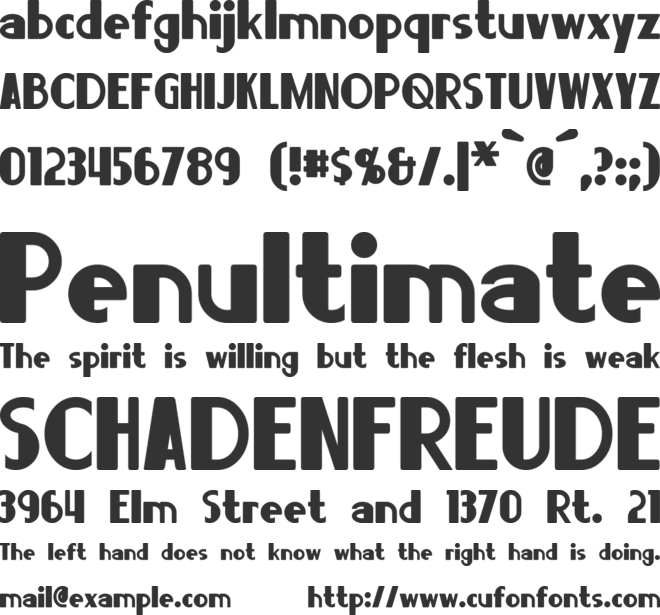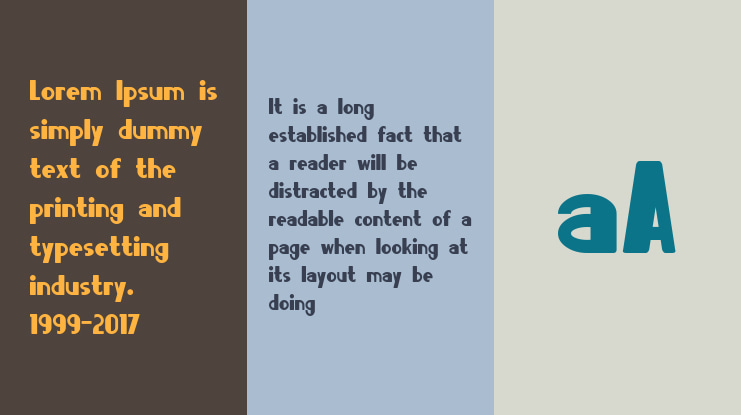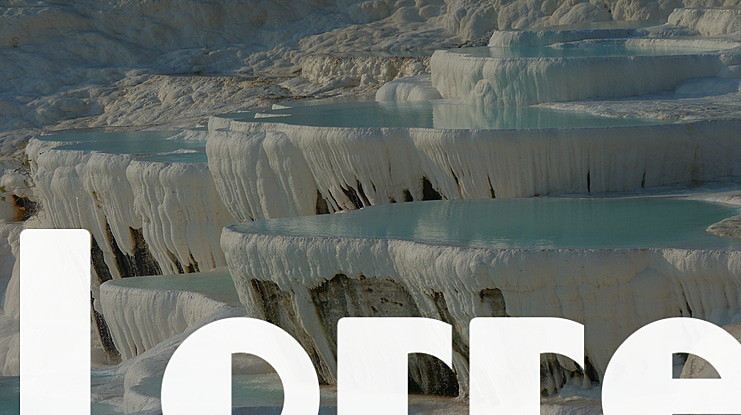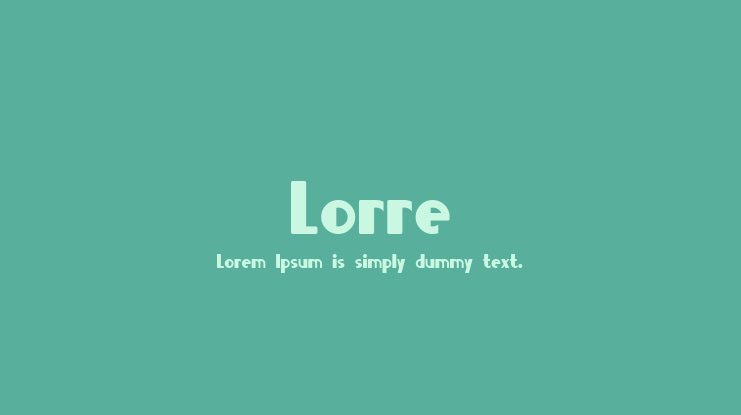
Lorre Font Family
Neale Davidson
This is a thick, bold art-deco typeface modeled after posters and marquees from the late 1920s. Includes full alphabet, extended characters and punctuation, Euro.